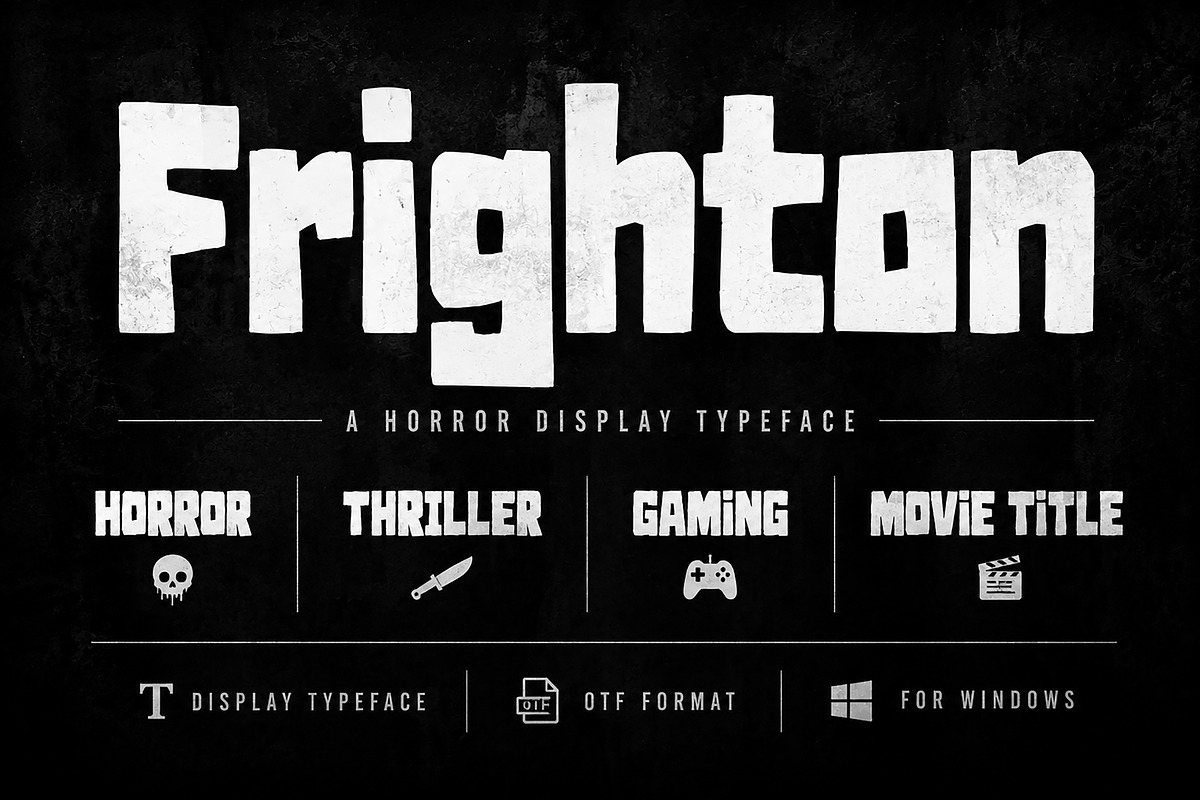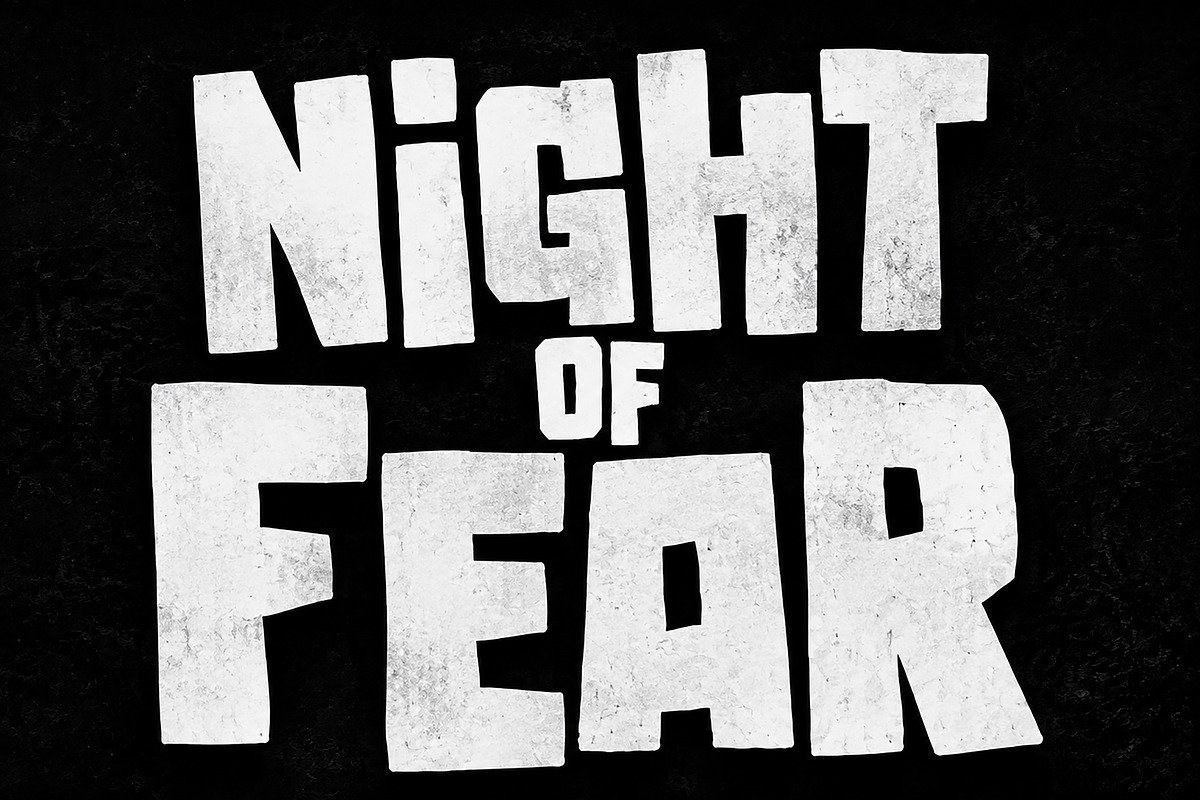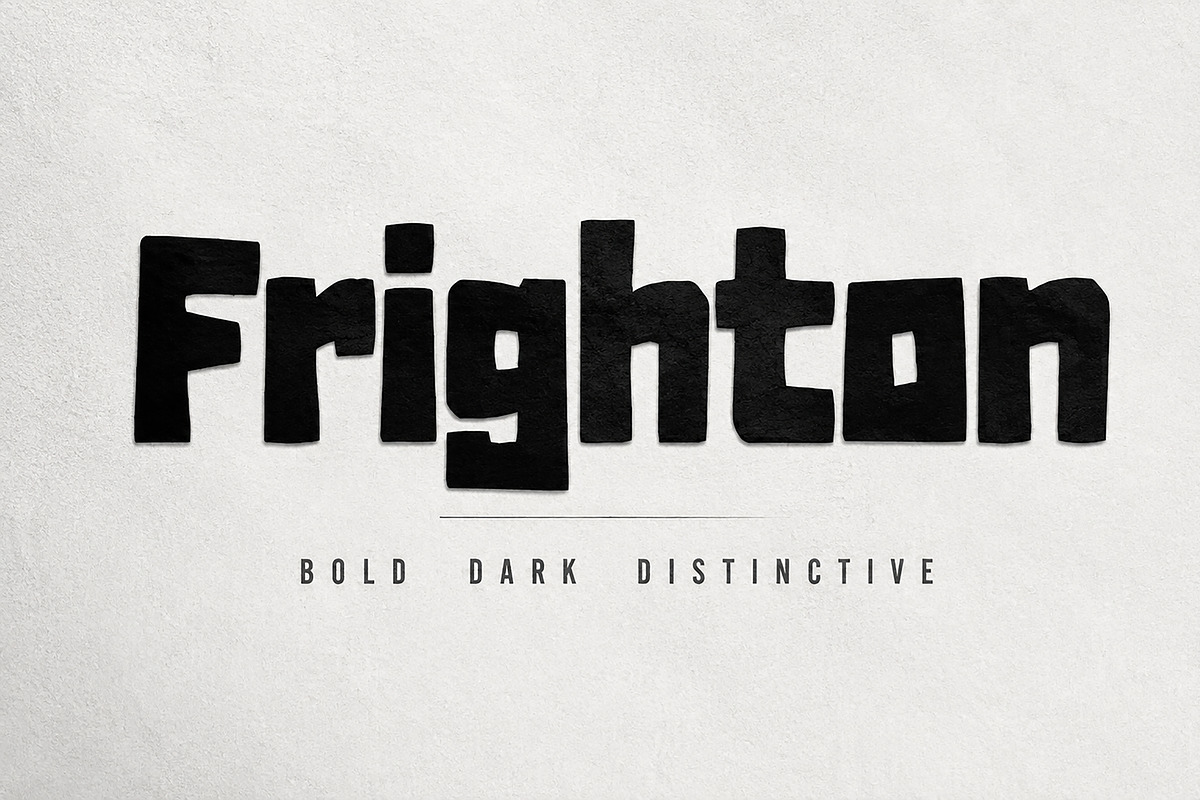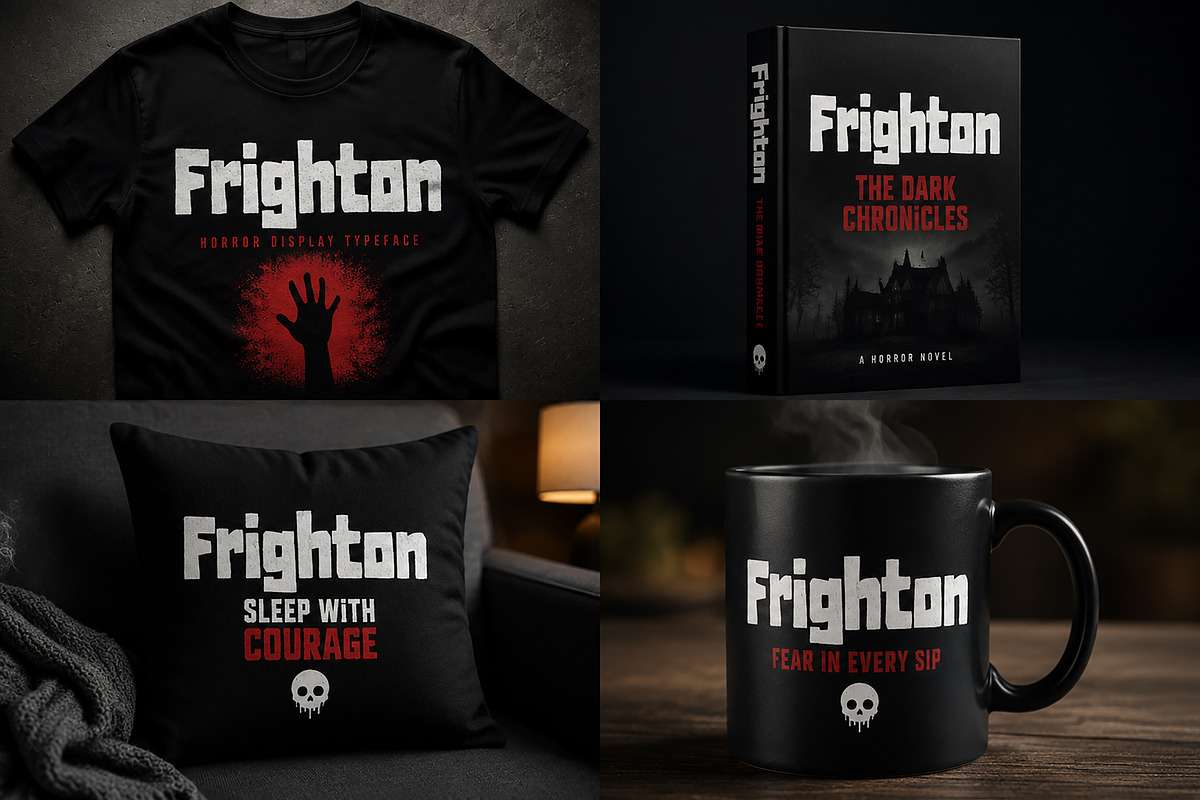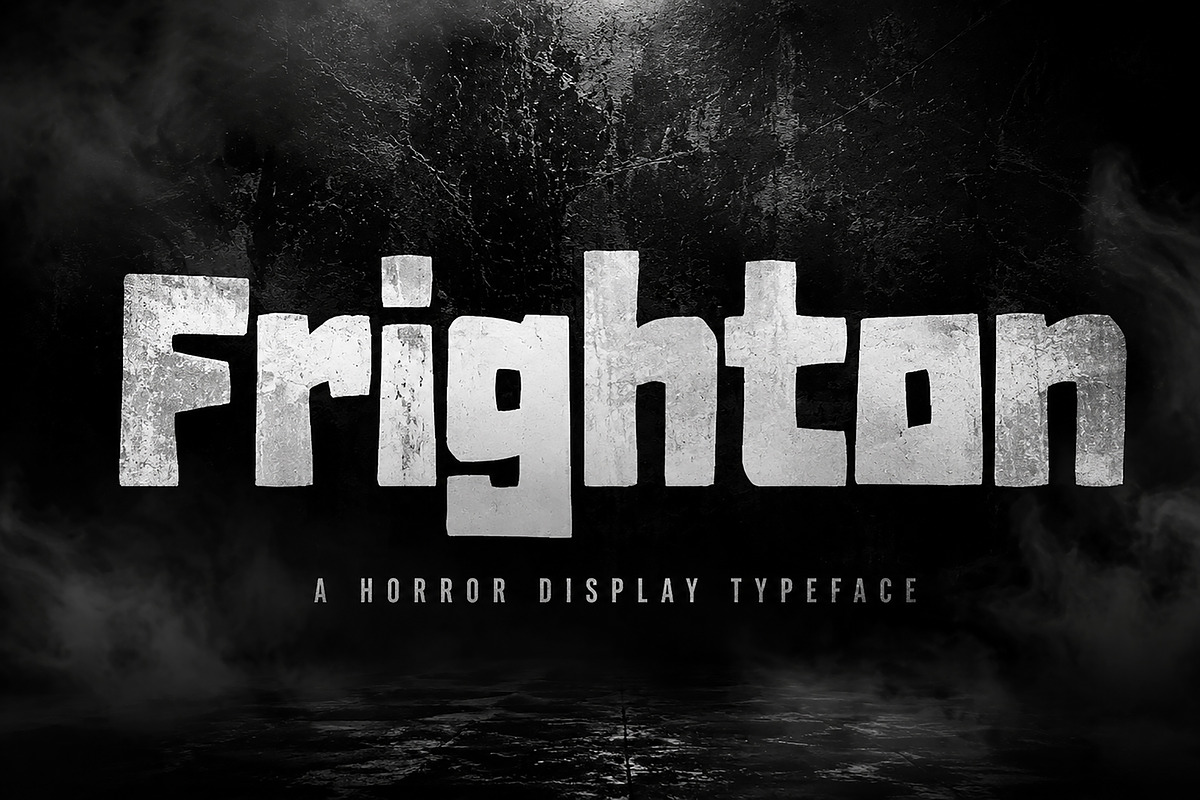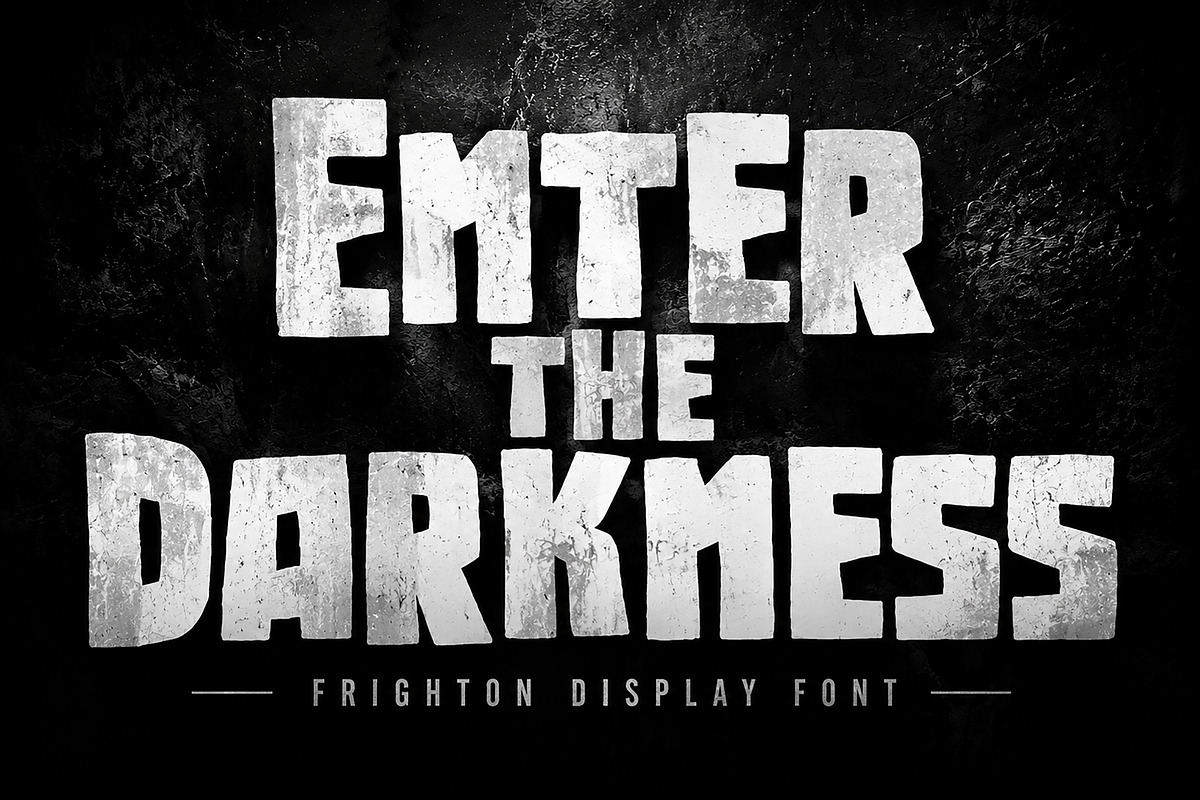
FRIGHTON – Horror Display Typeface
Frighton is a bold and powerful horror display typeface designed to create an intense, dark, and cinematic atmosphere. With its heavy block structure and unique irregular letter shapes, Frighton is perfect for projects that need a strong visual impact and a mysterious edge.
This font is ideal for horror posters, thriller titles, movie branding, gaming designs, book covers, Halloween graphics, merchandise, logos, album artwork, and dark-themed creative projects.
Frighton brings a dramatic and unforgettable style to your designs, making your typography stand out with a professional horror-inspired look.
✔ Horror Movie Titles
✔ Thriller & Suspense Designs
✔ Gaming Logos & Covers
✔ Halloween Artwork
✔ Book Covers
✔ Posters & Flyers
✔ T-Shirt Designs
✔ Merchandise Branding
✔ Album Covers
✔ Logo & Title Design
Create powerful, dark, and memorable